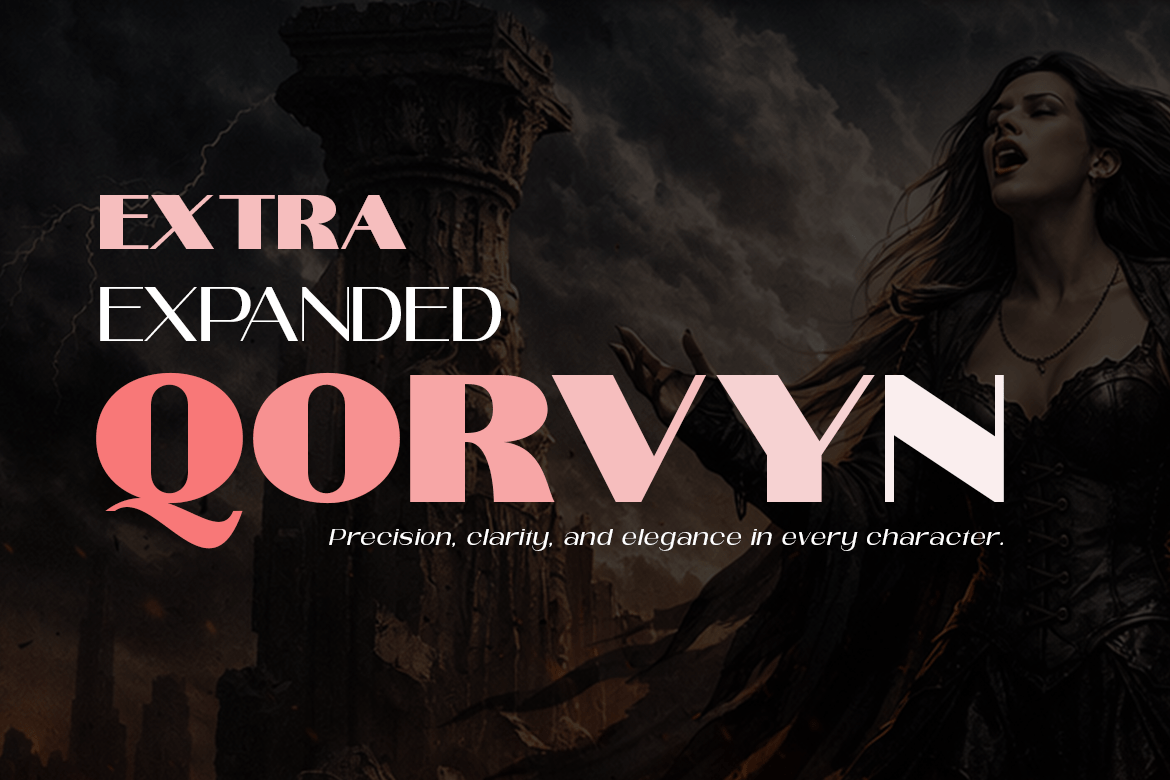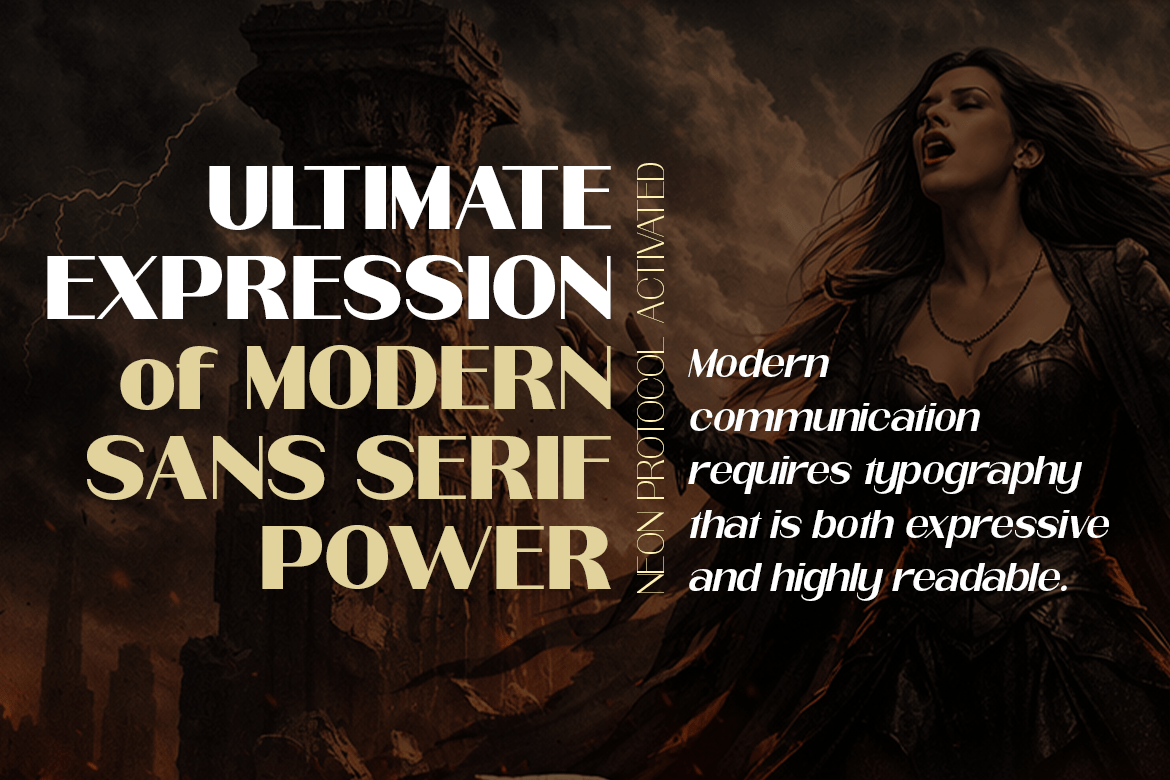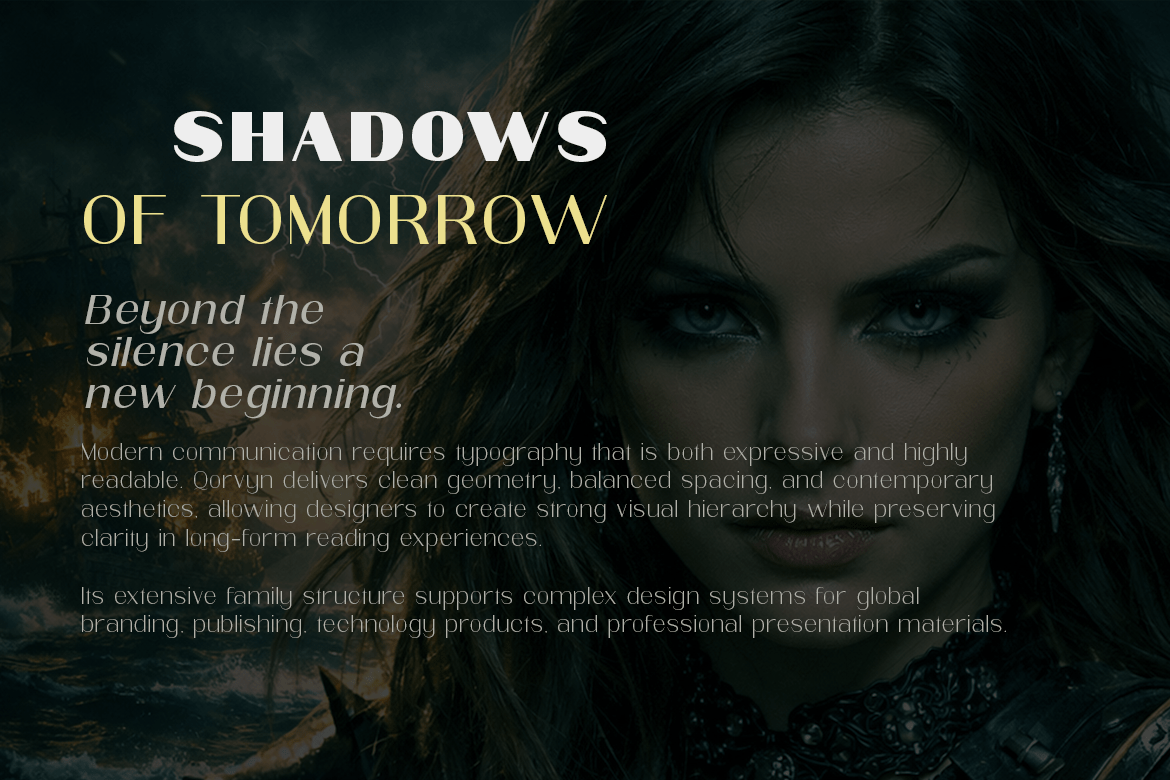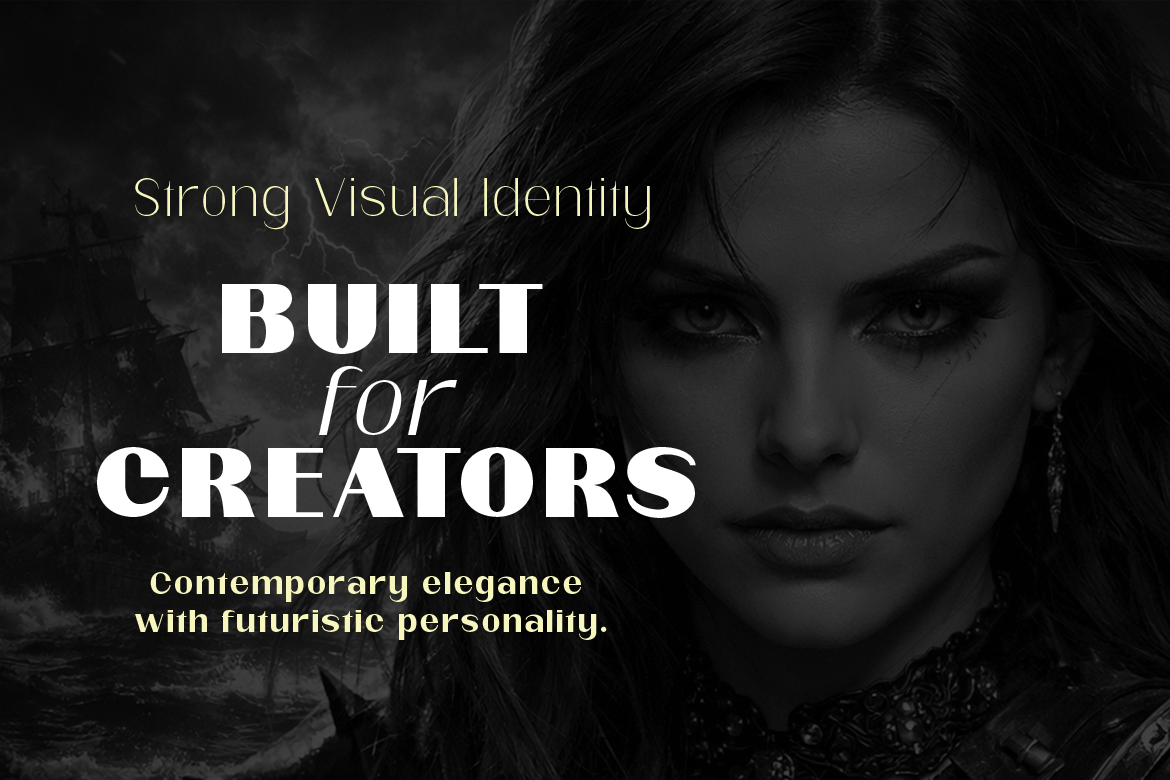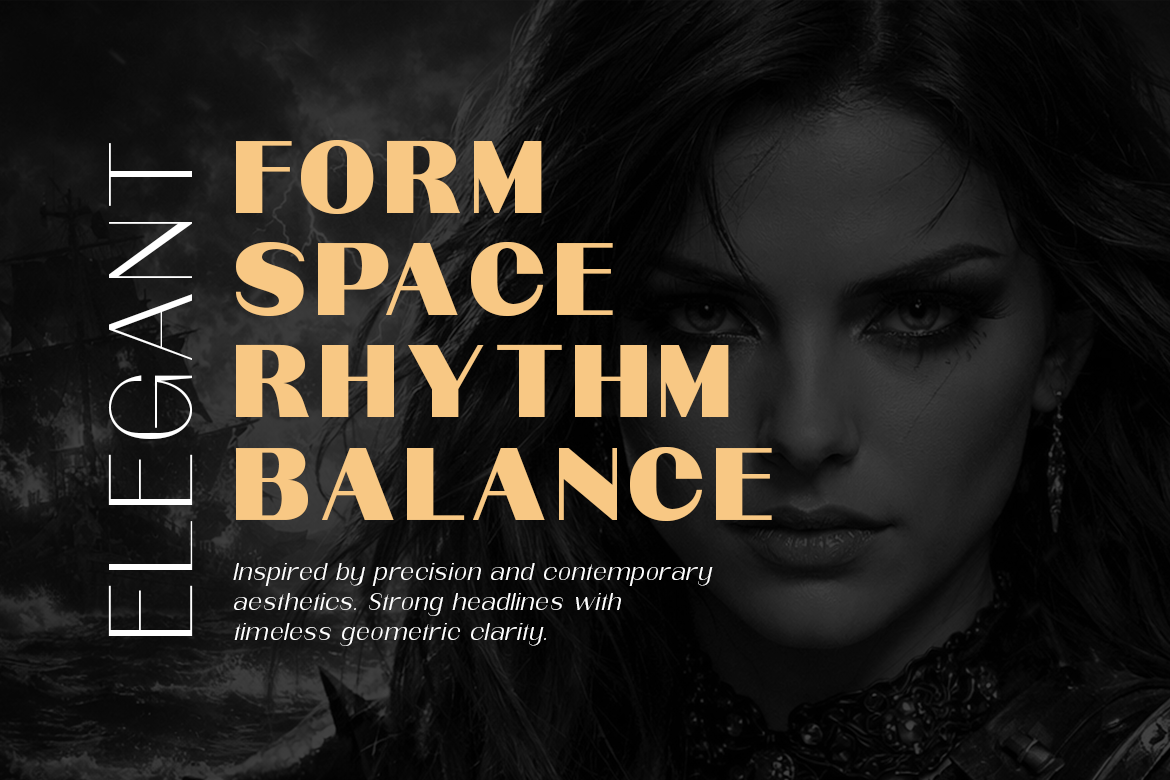
Qorvyn Expanded
Qorvyn Expanded is a modern sans-serif typeface family created to deliver bold presence, spacious proportions, and strong visual clarity. Designed with an expanded width structure, the family emphasizes openness and impact, making it highly suitable for branding, editorial headlines, advertising campaigns, posters, packaging, user interfaces, and large-scale display typography. The family includes 18 styles — 9 upright and 9 italic — ranging from refined thin weights to commanding black styles, offering extensive flexibility for diverse creative applications.
The upright styles provide a clean, stable, and authoritative appearance with sharp geometric construction and balanced spacing that enhances readability. The italic styles introduce movement and expressive dynamism, creating energetic contrast while preserving consistency across the entire family. Qorvyn Expanded combines contemporary minimalism with strong personality, resulting in a typeface system that feels modern, premium, and highly adaptable. Its wide proportions create a confident visual rhythm that performs exceptionally well in impactful layouts, both in print and digital environments.
The Qorvyn Expanded font family includes 231 glyphs.